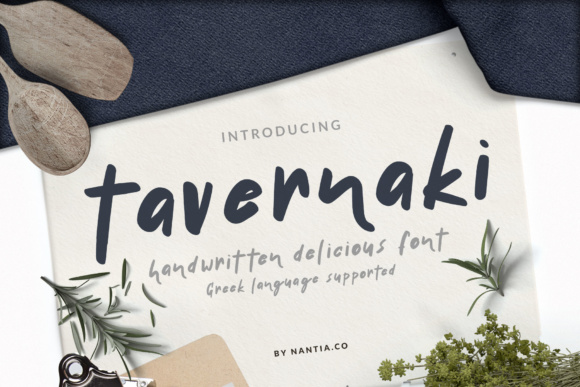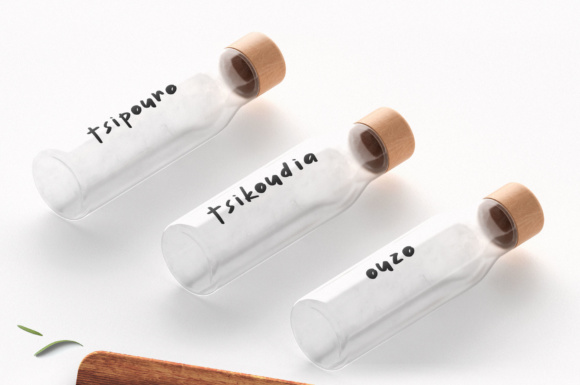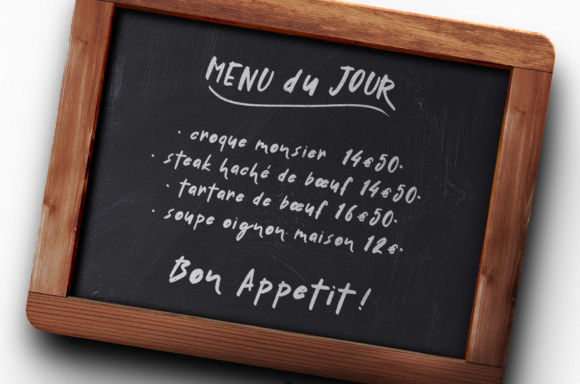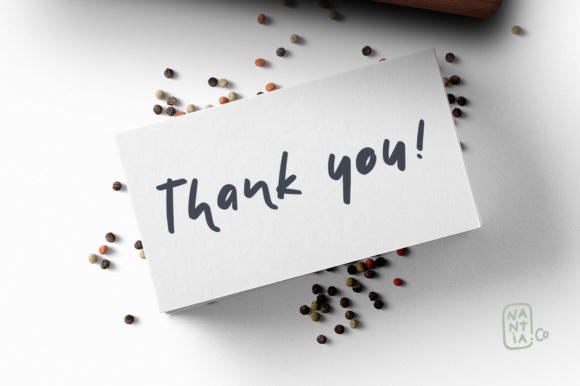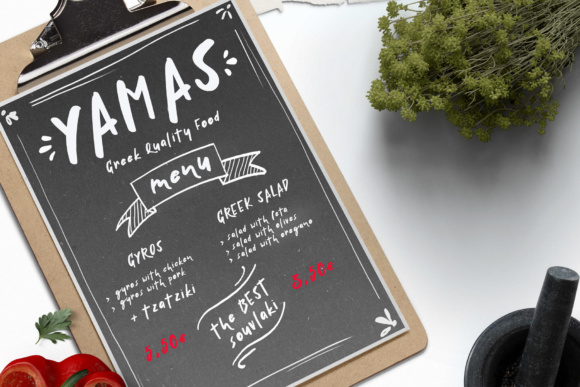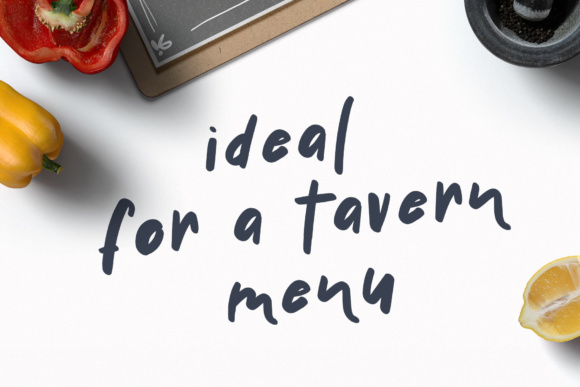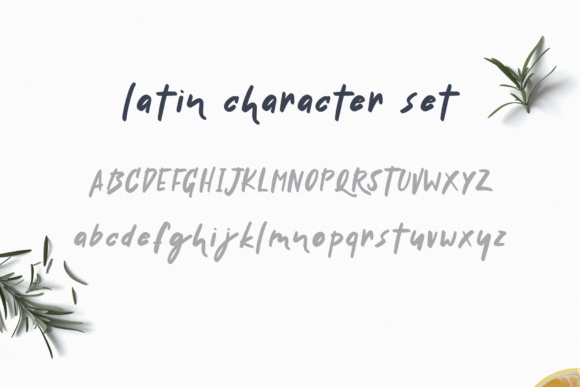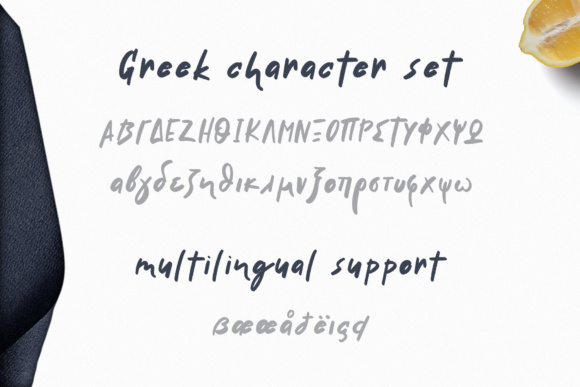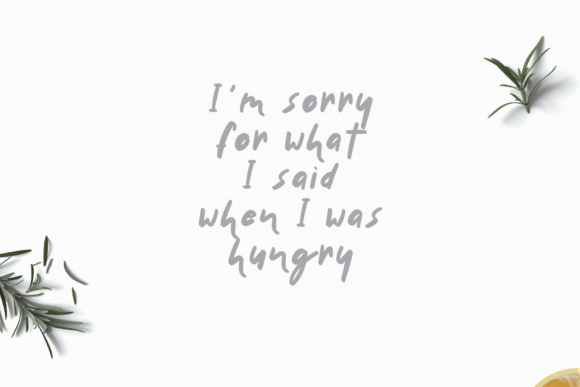
HomeScript FontsTavernaki Font Script Fonts Tavernaki Font FacebookXPinterestWhatsApp Tavernaki Font Poster 2 Tavernaki Font Poster 3 Tavernaki Font Poster 4 Tavernaki Font Poster 5 Tavernaki Font Poster 6 Tavernaki Font Poster 7 Tavernaki Font Poster 8 Tavernaki Font Poster 9 Tavernaki Font Poster 10 Tavernaki Font Poster 11 Tavernaki Font Poster 12 About Tavernaki Font The Tavernaki is a handwritten typeface which will add a striking yet handwriting feel to every design. DOWNLOAD ON CREATIVE FABRICAThis font is sold and delivered by Creative Fabrica. Font Canyon may earn a commission if you buy through this link. People also explored The Wild Eagle Font Claudia Font Quinapple Font Mandevilla Family Font Heartbright Font Business Font West Pante Font Gwyneth Font Hocus Pocus Font 299 0 TagsTavernaki Font Previous articleBlanc Seing FontNext articleSellebeew Font LEAVE A REPLY Cancel reply Comment: Please enter your comment! Name:* Please enter your name here Email:* You have entered an incorrect email address! Please enter your email address here Website: Save my name, email, and website in this browser for the next time I comment. Personal Use Free Mounets Personal Use Free Read more about this font Evensong Hollow Personal Use Free Read more about this font Abingdon Personal Use Free Read more about this font Monogram Calligraphy Personal Use Free Read more about this font BLOG Elegant Wedding Invitation Fonts – Handwritten & Script Fonts Elegant Wedding Invitation Fonts Your wedding day is one of the most important moments of your life, and every detail matters—including your invitation design. Our... To increase your work productivity, choose the most readable fonts. Top 7 Google Fonts Alternatives for Faster and Privacy-Friendly Web Design (2025) Best Fonts for YouTube Videos: Make Your Thumbnails Stand Out